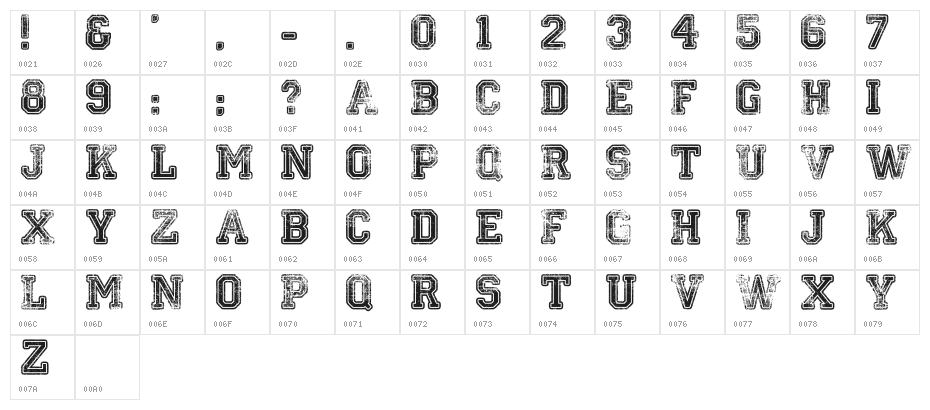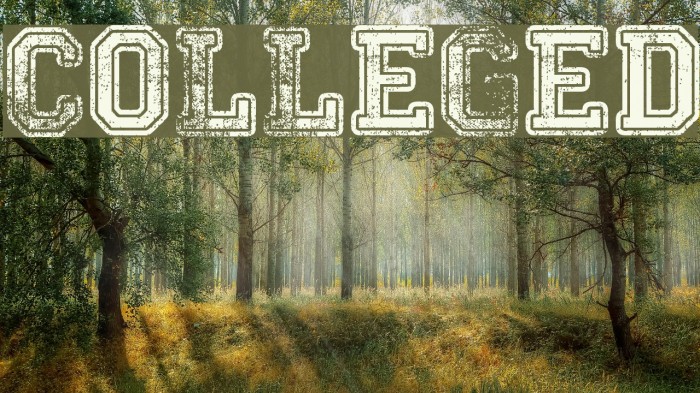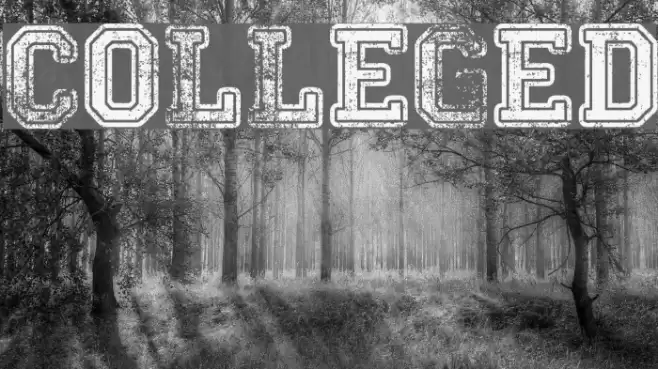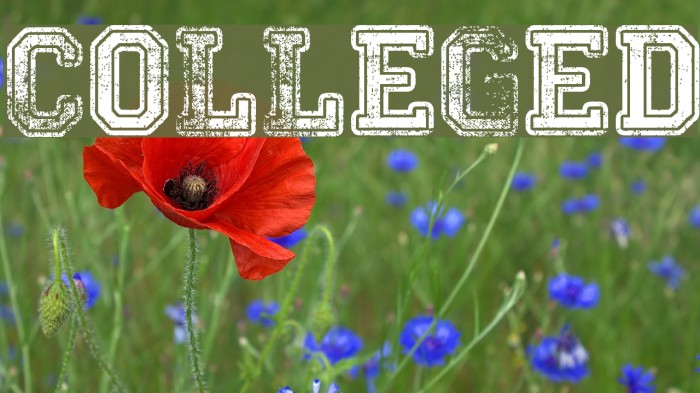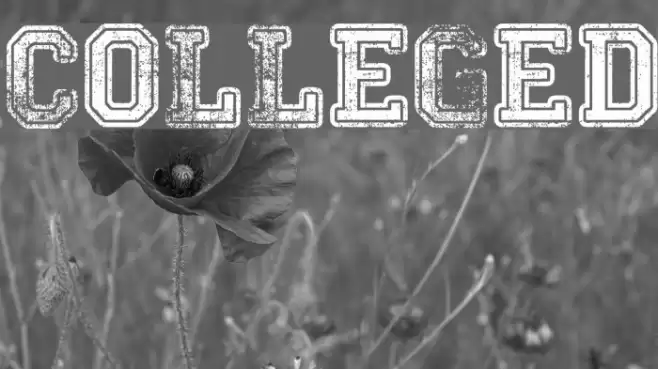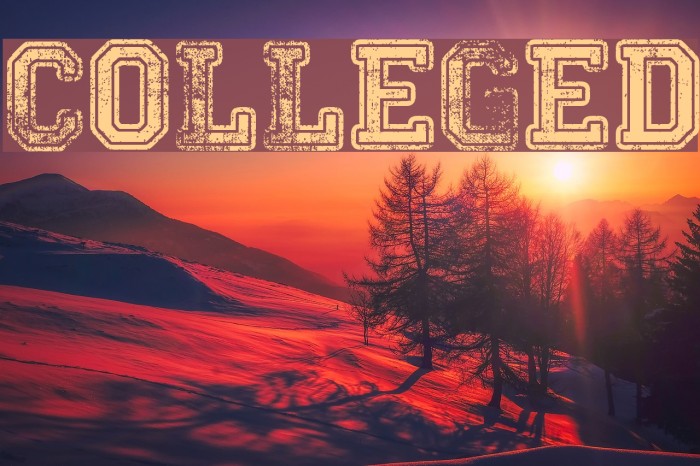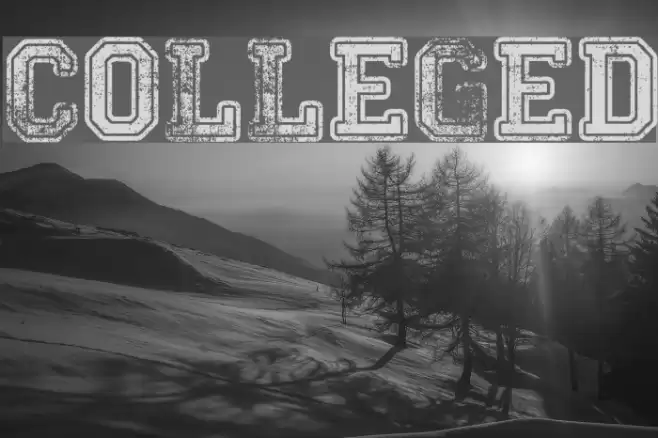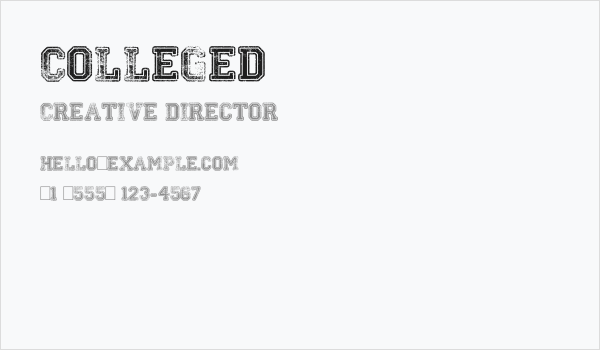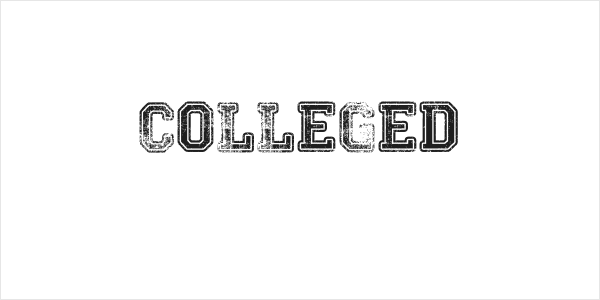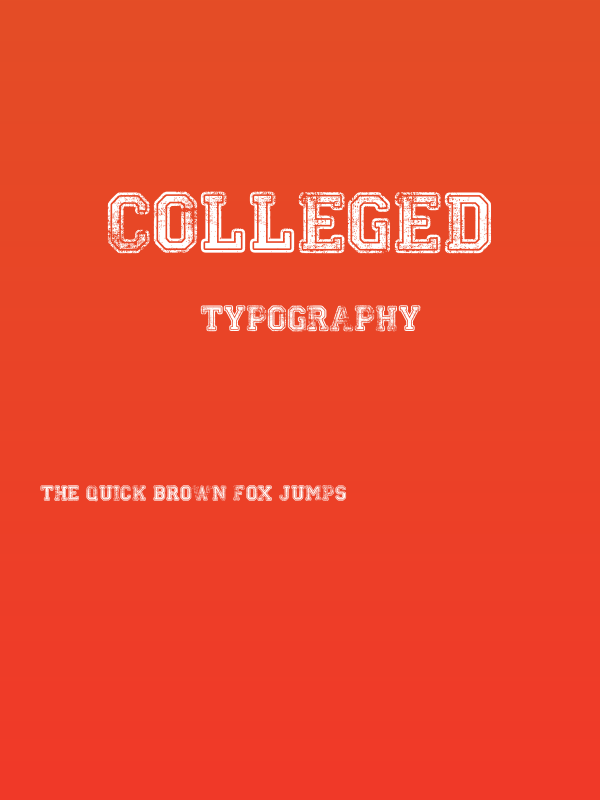
Colleged Font
Colleged Description
This font features a bold, distressed style with a collegiate or varsity aesthetic. The characters are uppercase and have a strong, blocky appearance, reminiscent of traditional sports jerseys or university apparel. The distressed texture adds a vintage or worn effect, giving it a rugged and dynamic look. The font maintains a consistent width and height across all characters, ensuring uniformity and balance. The numbers and special characters follow the same stylistic cues, making it versatile for various design needs.
| Proposed Projects | Ideal for sports team branding, university merchandise, retro-themed posters, and apparel design. |